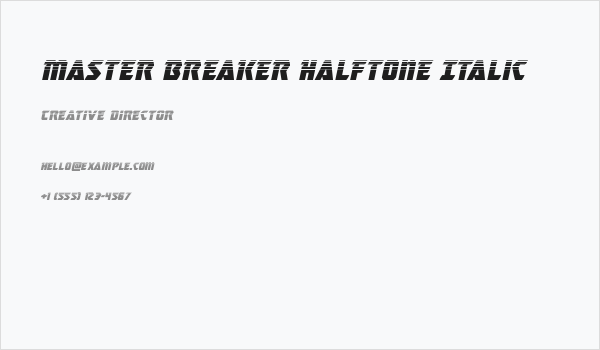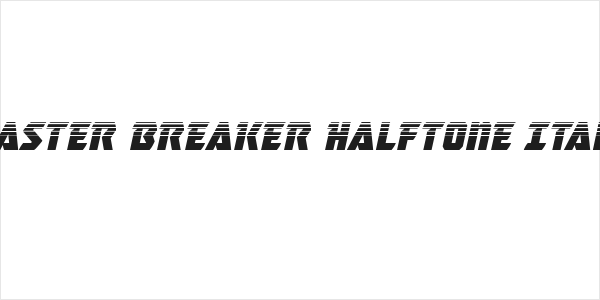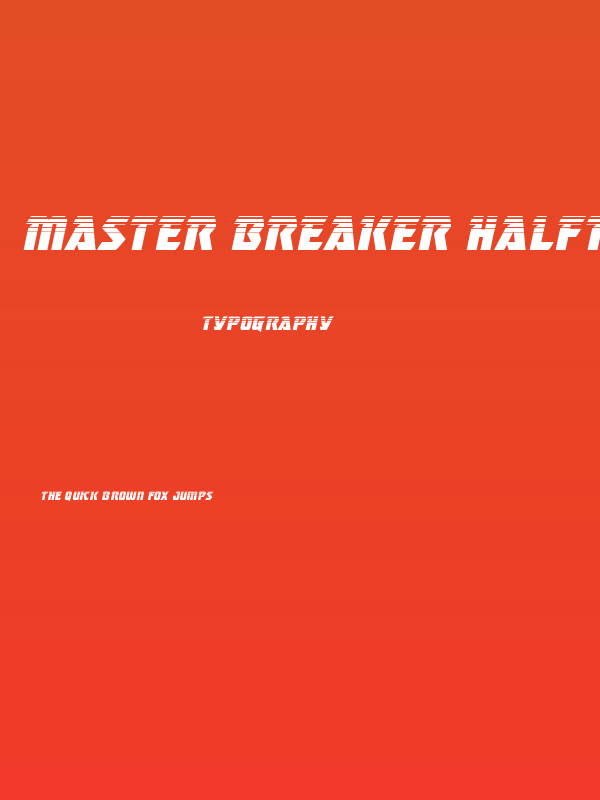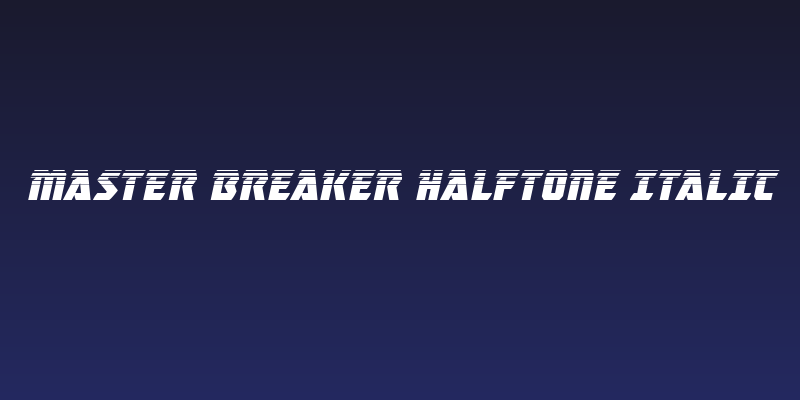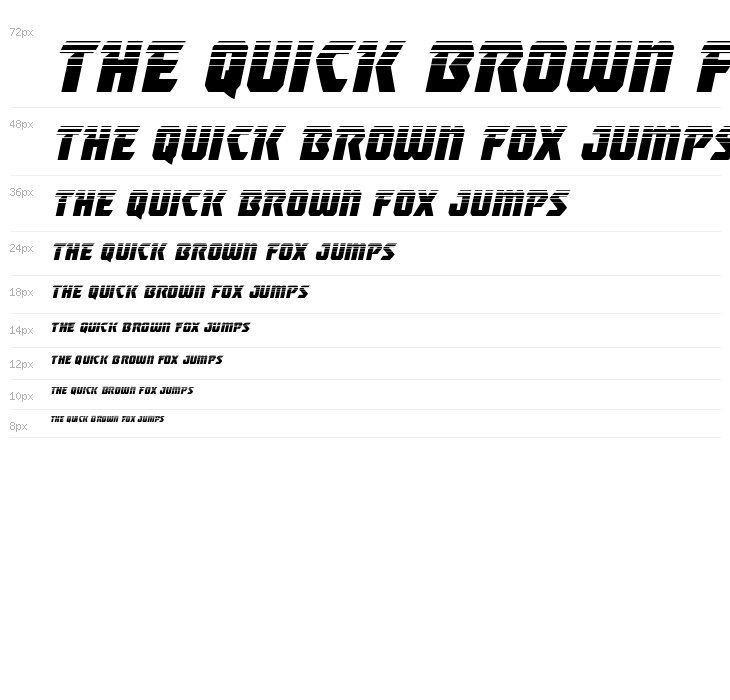
Master Breaker Halftone Italic Font
Master Breaker Halftone Italic Description
This font features a bold, angular design with a distinct halftone effect, giving it a dynamic and futuristic appearance. The italicized slant adds a sense of motion and energy, making it ideal for projects that require a modern and edgy look. The characters are tightly spaced, enhancing the compact and impactful style. The uppercase and lowercase letters maintain a consistent geometric form, while the numbers and special characters complement the overall aesthetic. This font is perfect for creating eye-catching headlines, posters, and branding materials that demand attention.